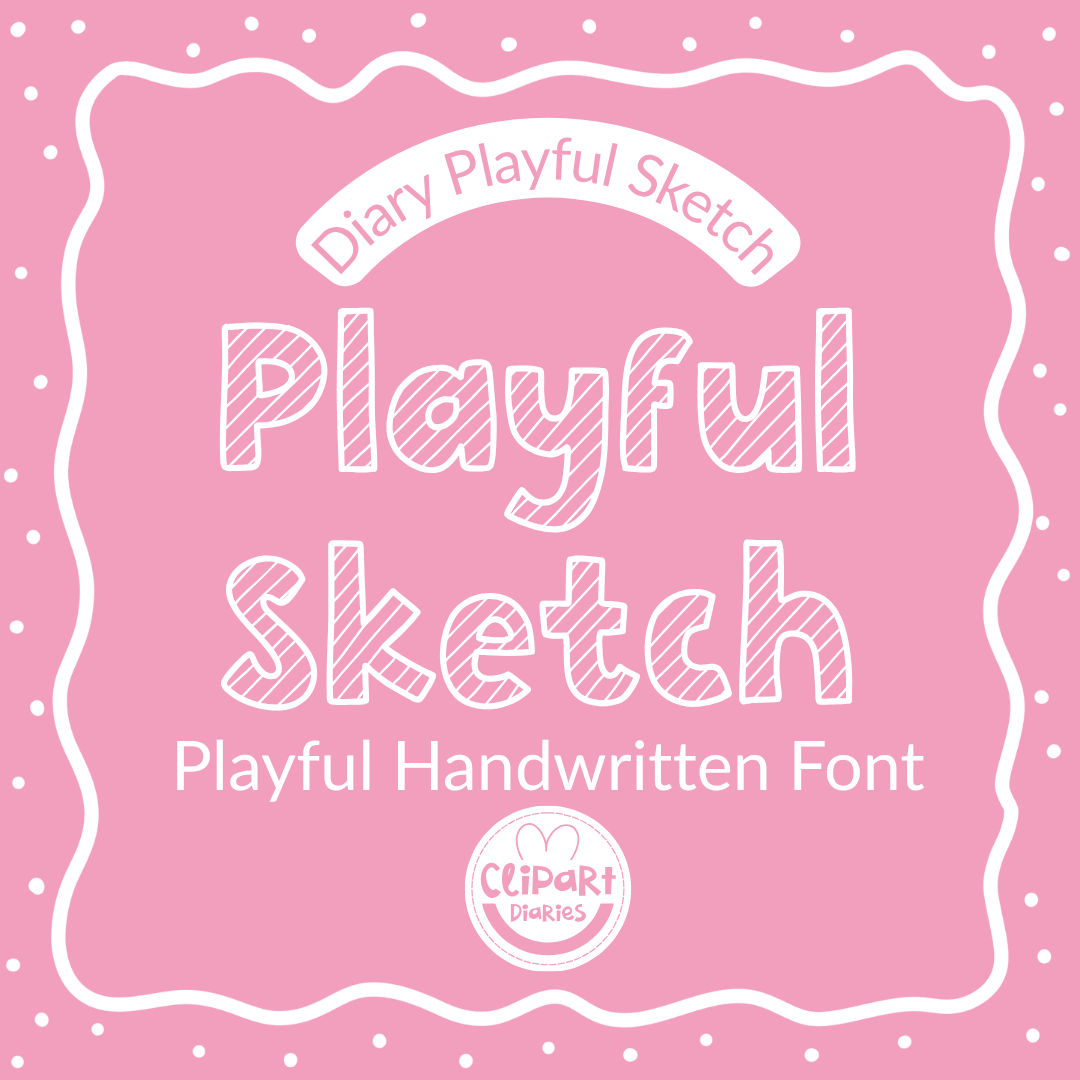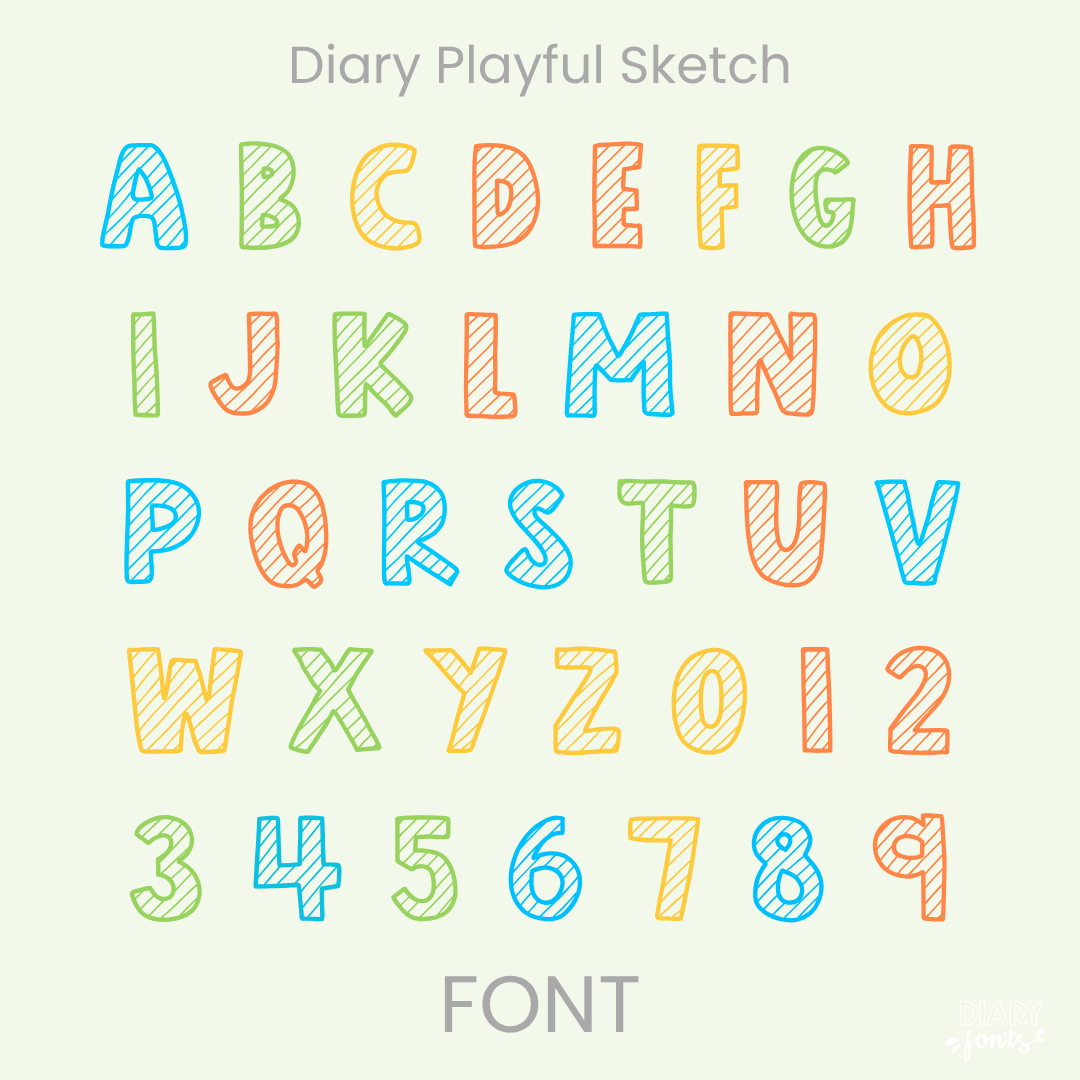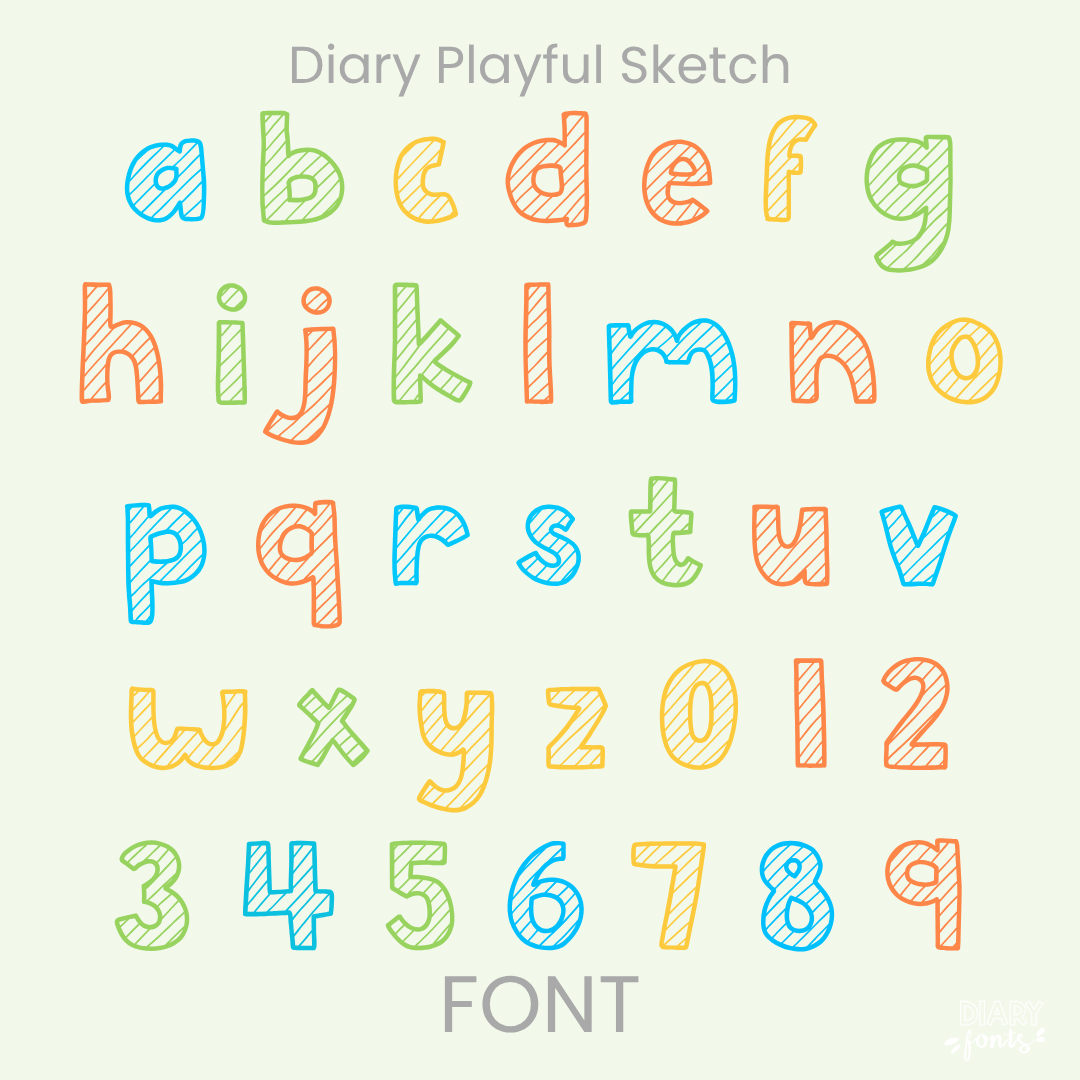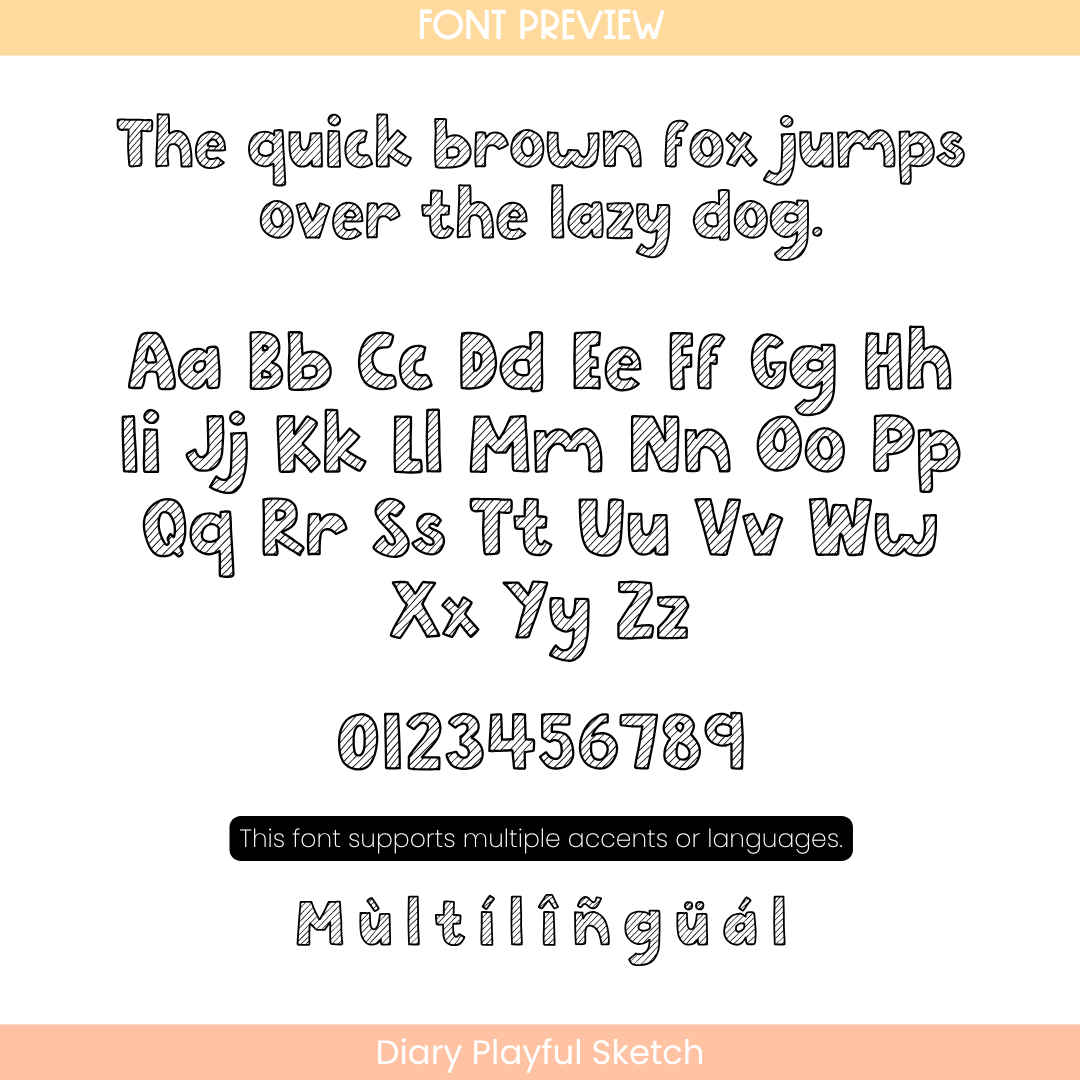
If you want to give your teaching materials a beautifully hand-crafted and highly visual look, Diary Playful Sketch is an excellent choice. Built on a bouncy and cheerful print structure, this typeface stands out with its distinct outline design filled with fine, diagonal sketch marks. This textured, shaded detailing gives every character a multi-dimensional, realistic pencil or crayon texture that instantly mimics classroom drawings and blackboard doodles.
While keeping a fun, casual personality, it maintains clean visual tracking and balanced letter heights to ensure your headings remain highly clear and engaging for young learners. It is a perfect fit for art class worksheets, creative storytelling headers, unique morning presentation slides, project covers, and striking bulletin board displays. The download includes a full set of uppercase and lowercase sketched letters, numbers, and multiple accents for global language layouts. It installs instantly on your computer and works smoothly with Canva, MS Office, and Adobe Apps, as well as on your iPad with Procreate and GoodNotes. Whether you are setting up interactive lessons for your own students or packaging fresh assets for commercial teacher resources, this sketch typeface brings an approachable, creative, and artistic aesthetic to your design toolkit.